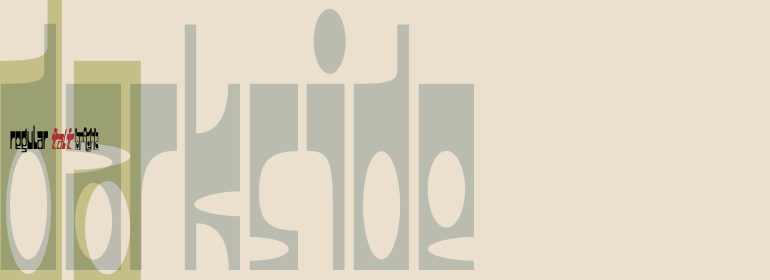
Darkside
Darkside is a three-style display family from Device with a distinctly retro-futuristic feel. Tagged with 1960s, 1970s, futuristic, and groovy influences, it brings a bold, space-age attitude that feels playful, stylized, and made to stand out.
The family includes Darkside Regular, Darkside Italic, and Darkside Bright, giving you a small but useful range for building eye-catching display typography. Its character suits posters, album-inspired graphics, branding, packaging, signage, and other statement-making work where a vintage sci-fi or psychedelic edge fits the brief.
If you want letterforms with a strong period flavor and a dramatic visual voice, this set offers an expressive option for decorative headlines and standout logo treatments.